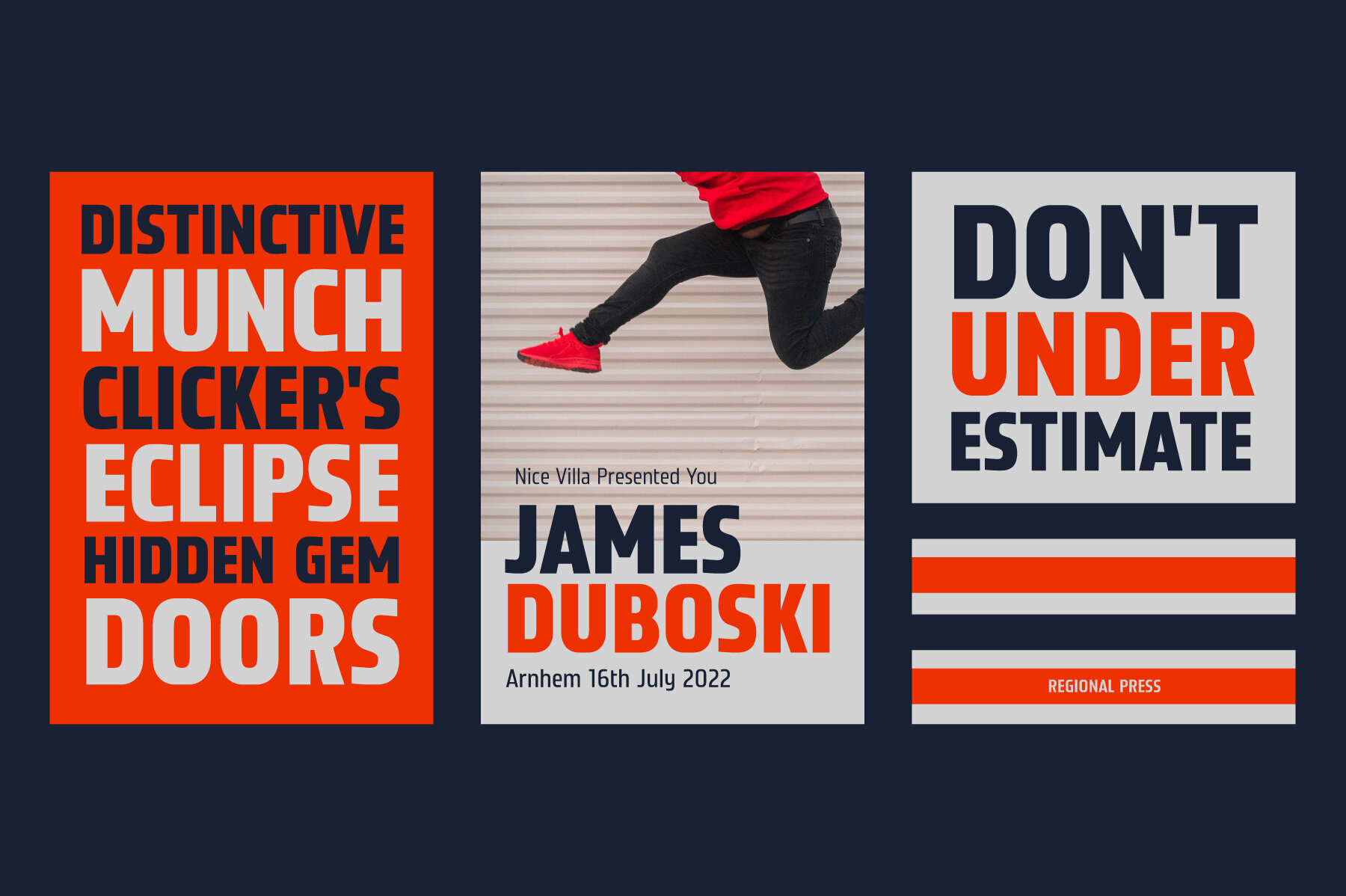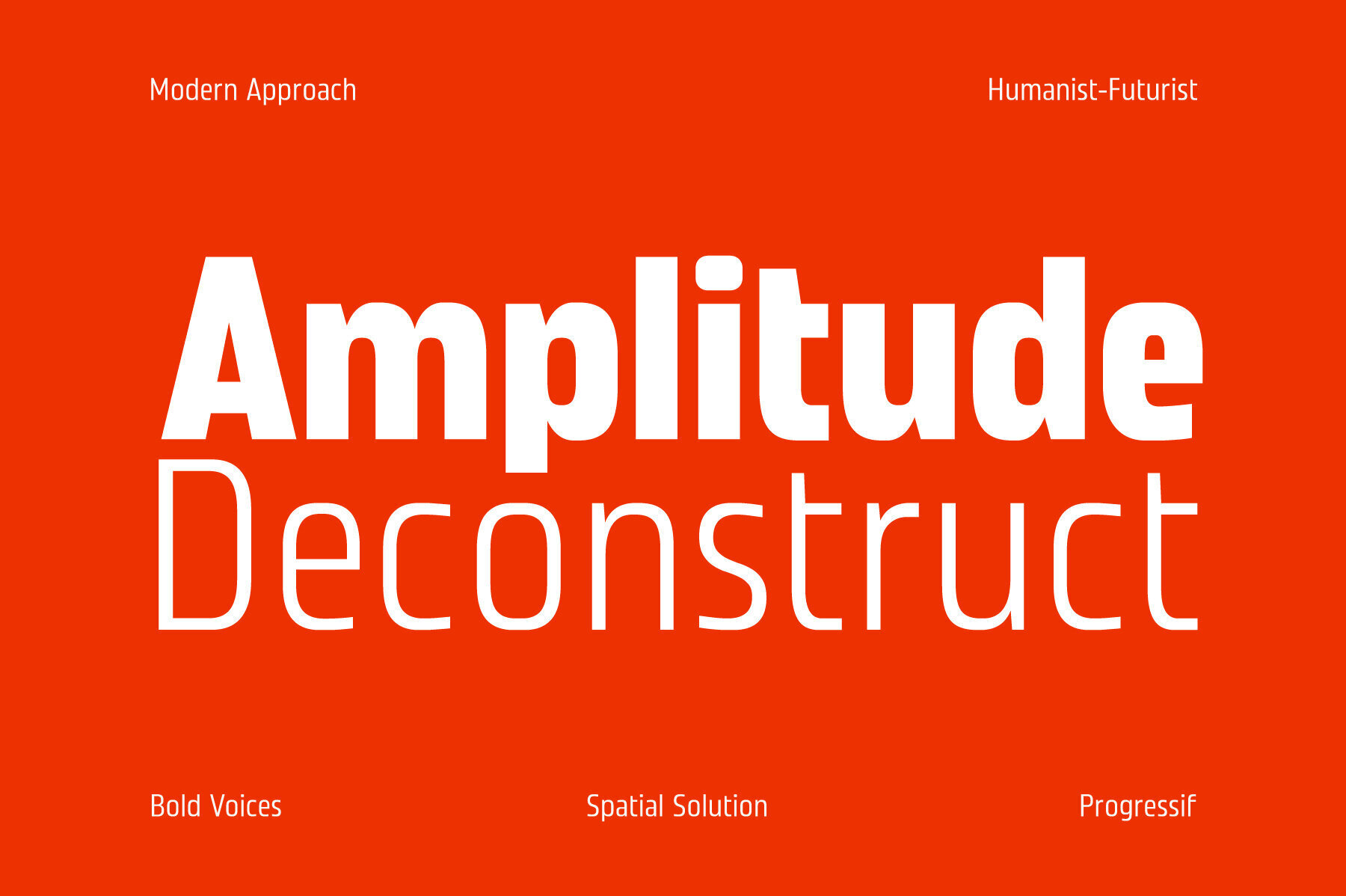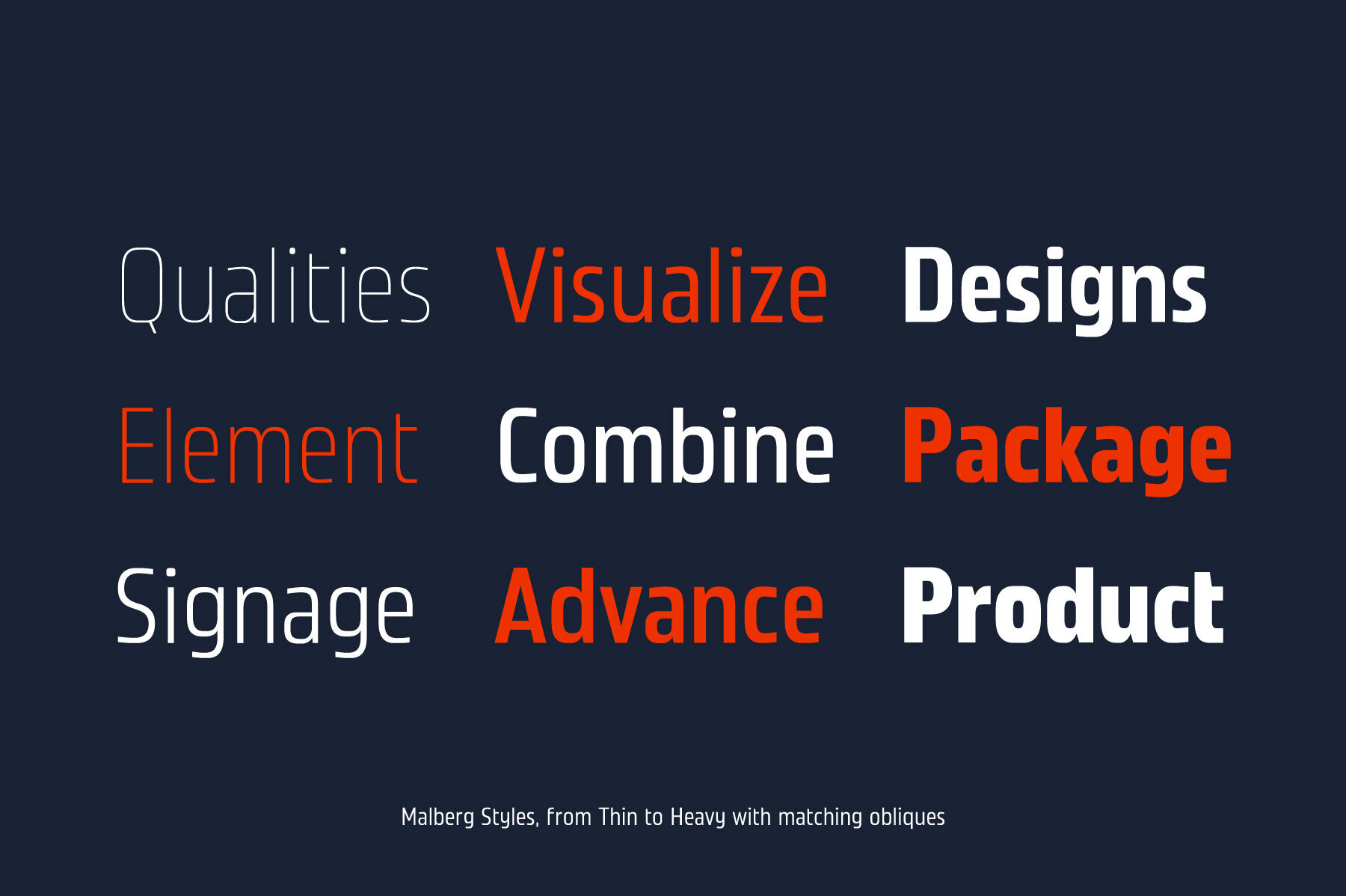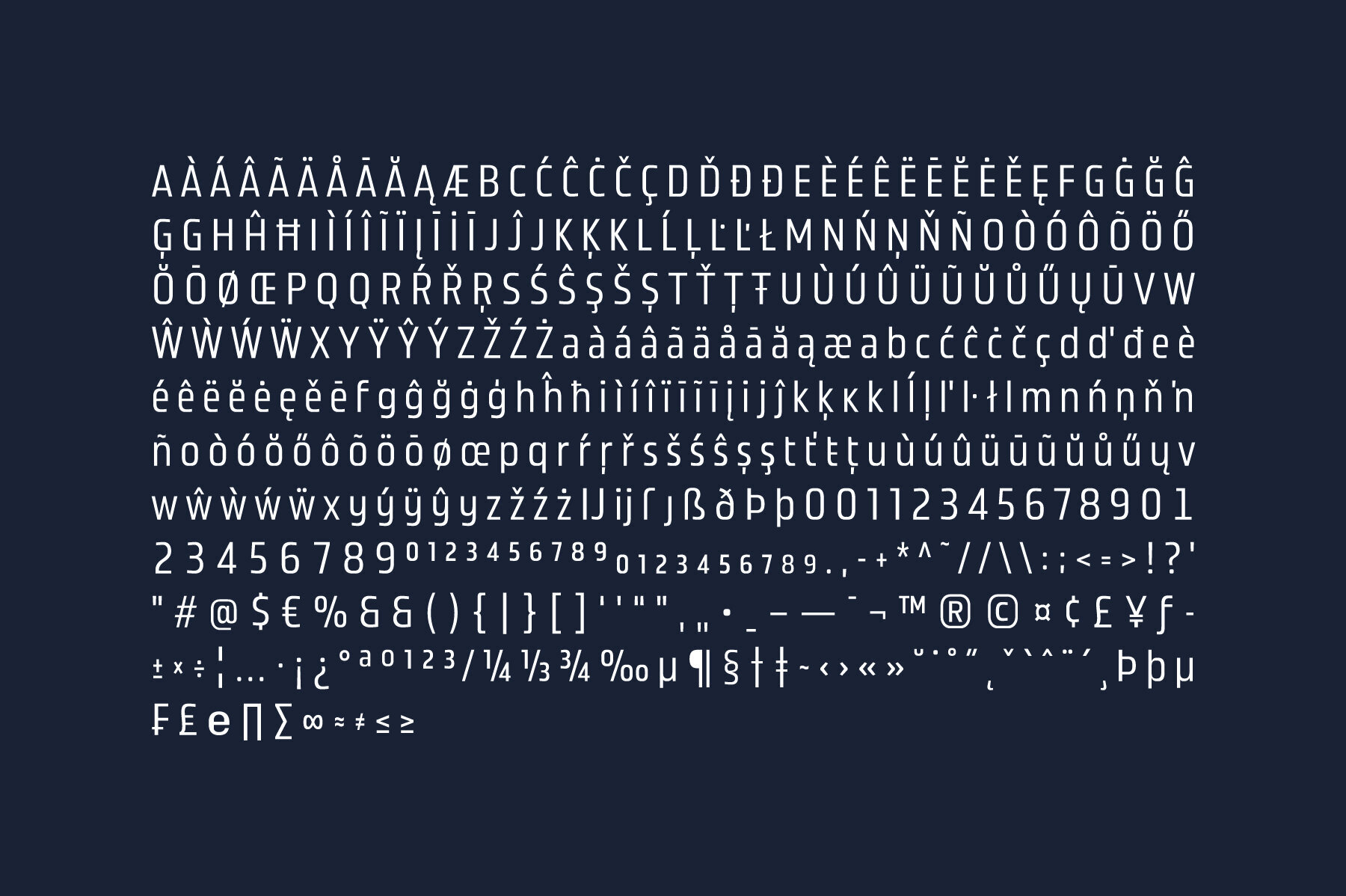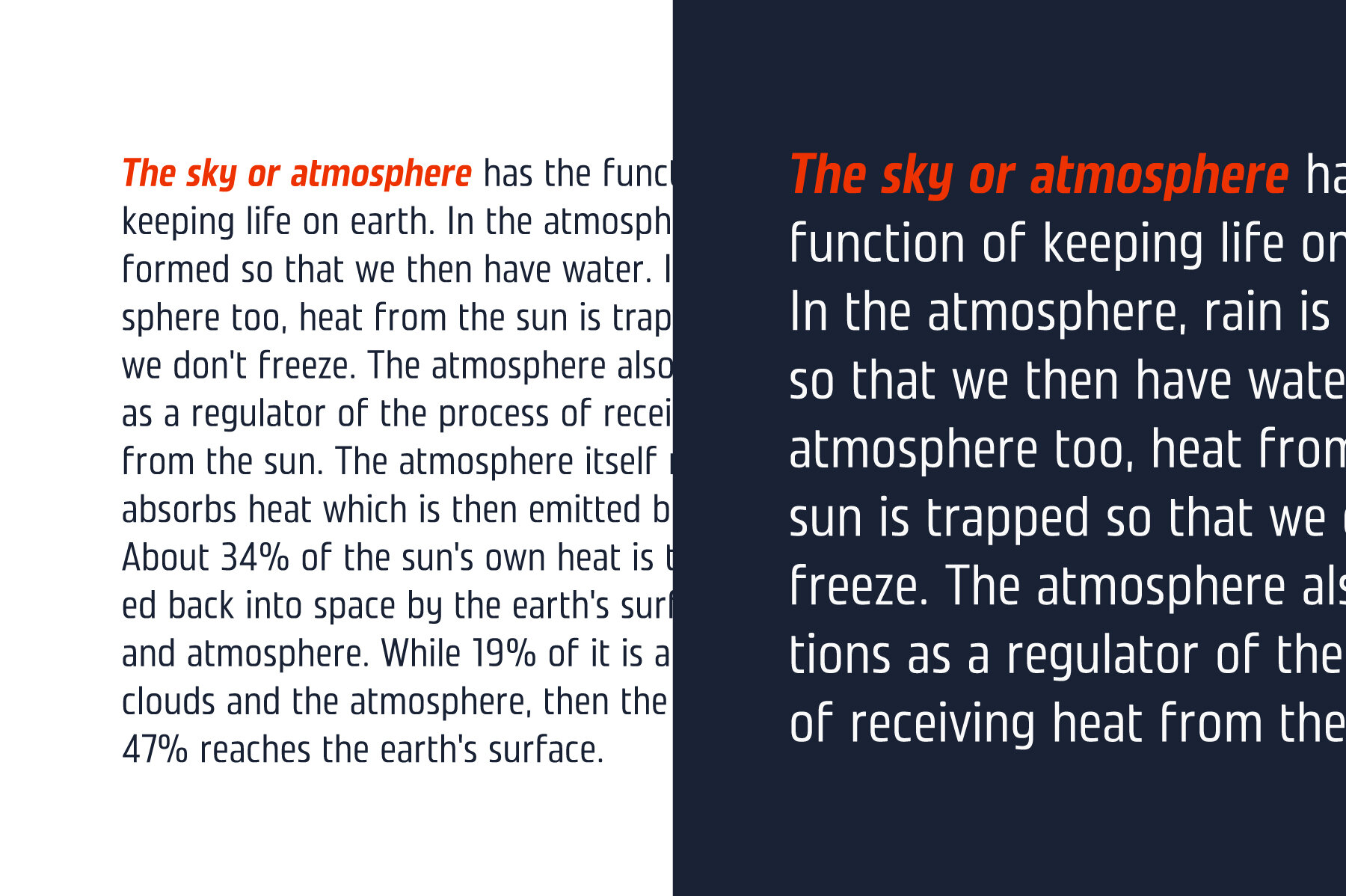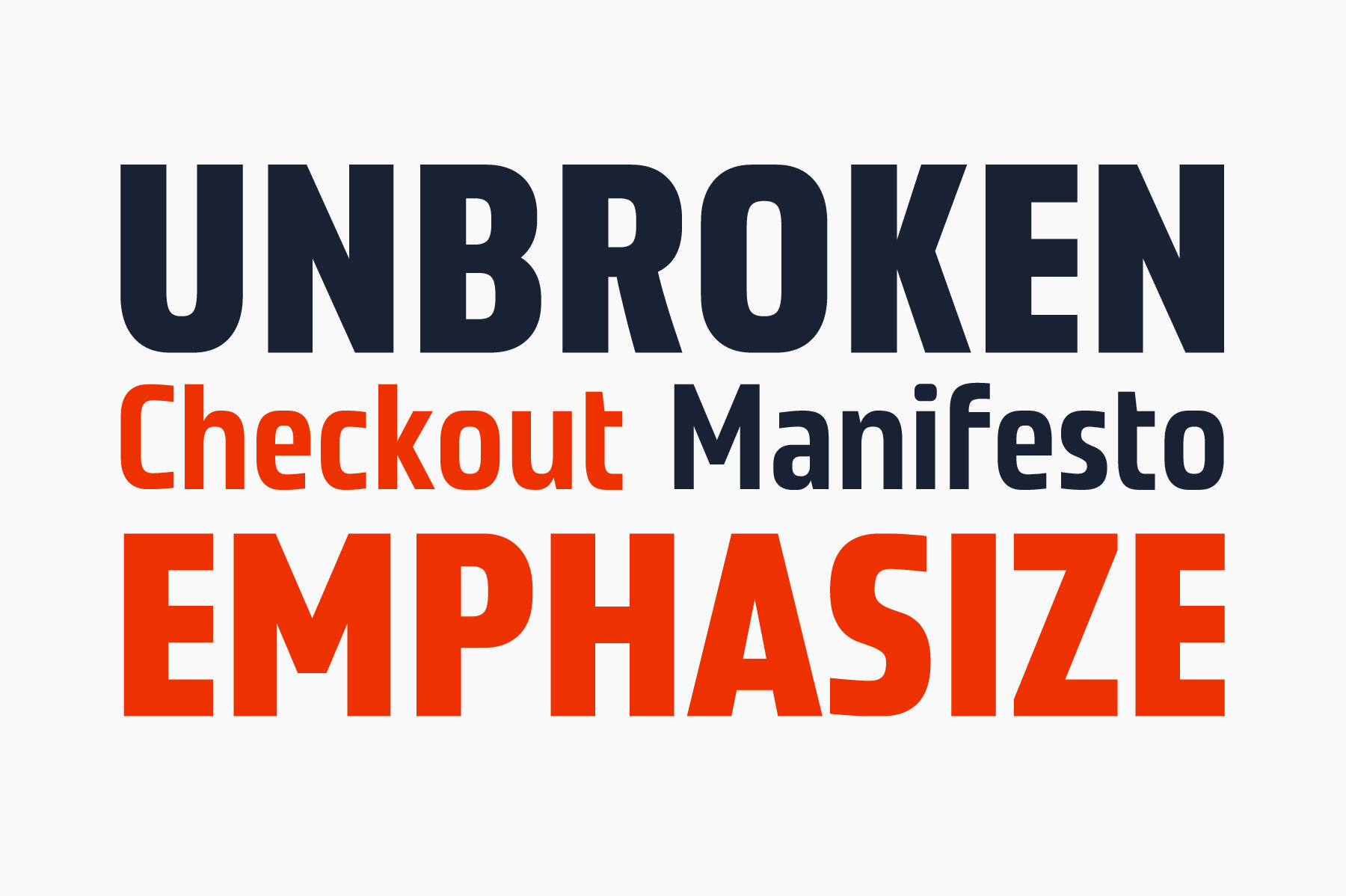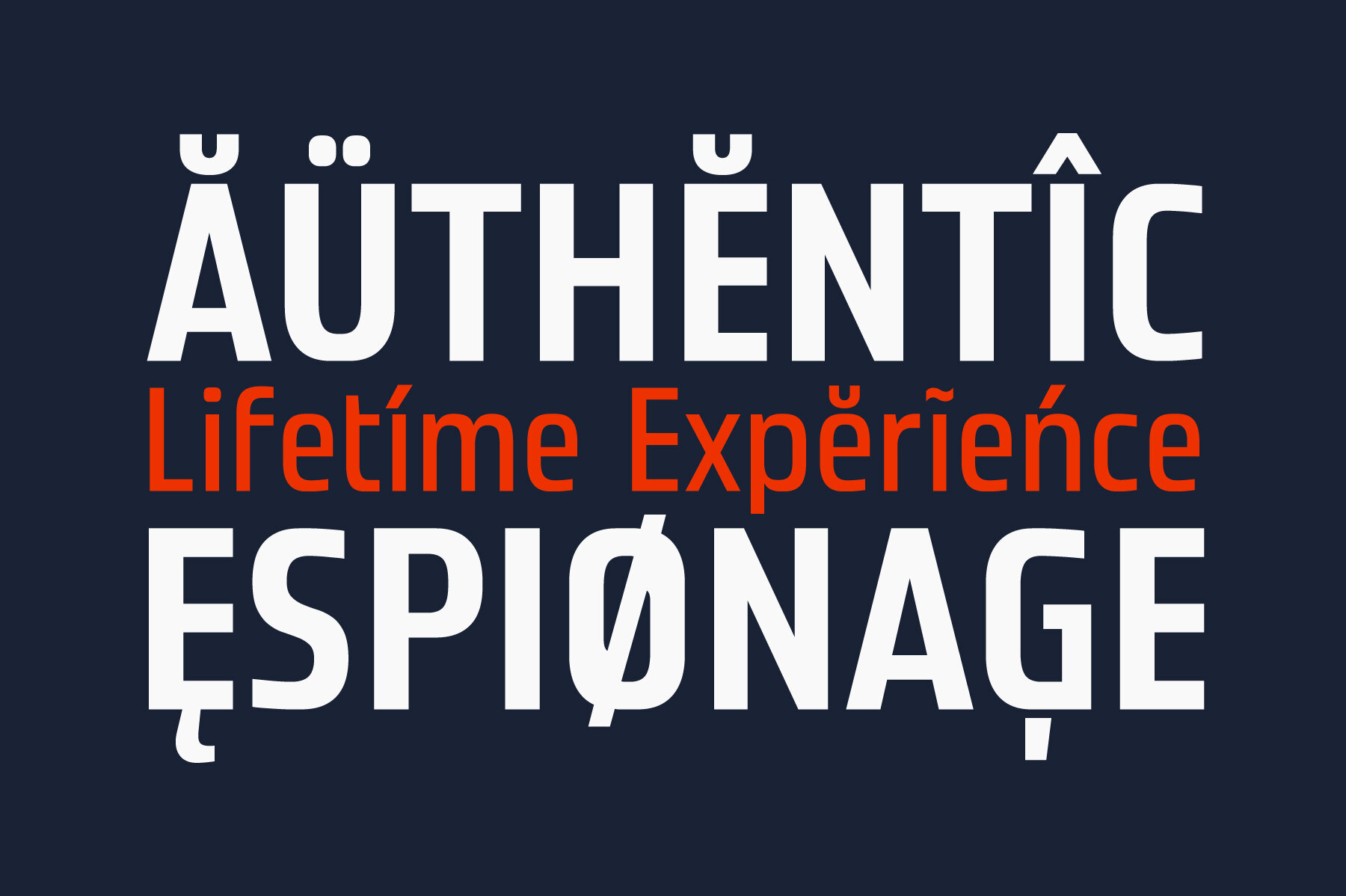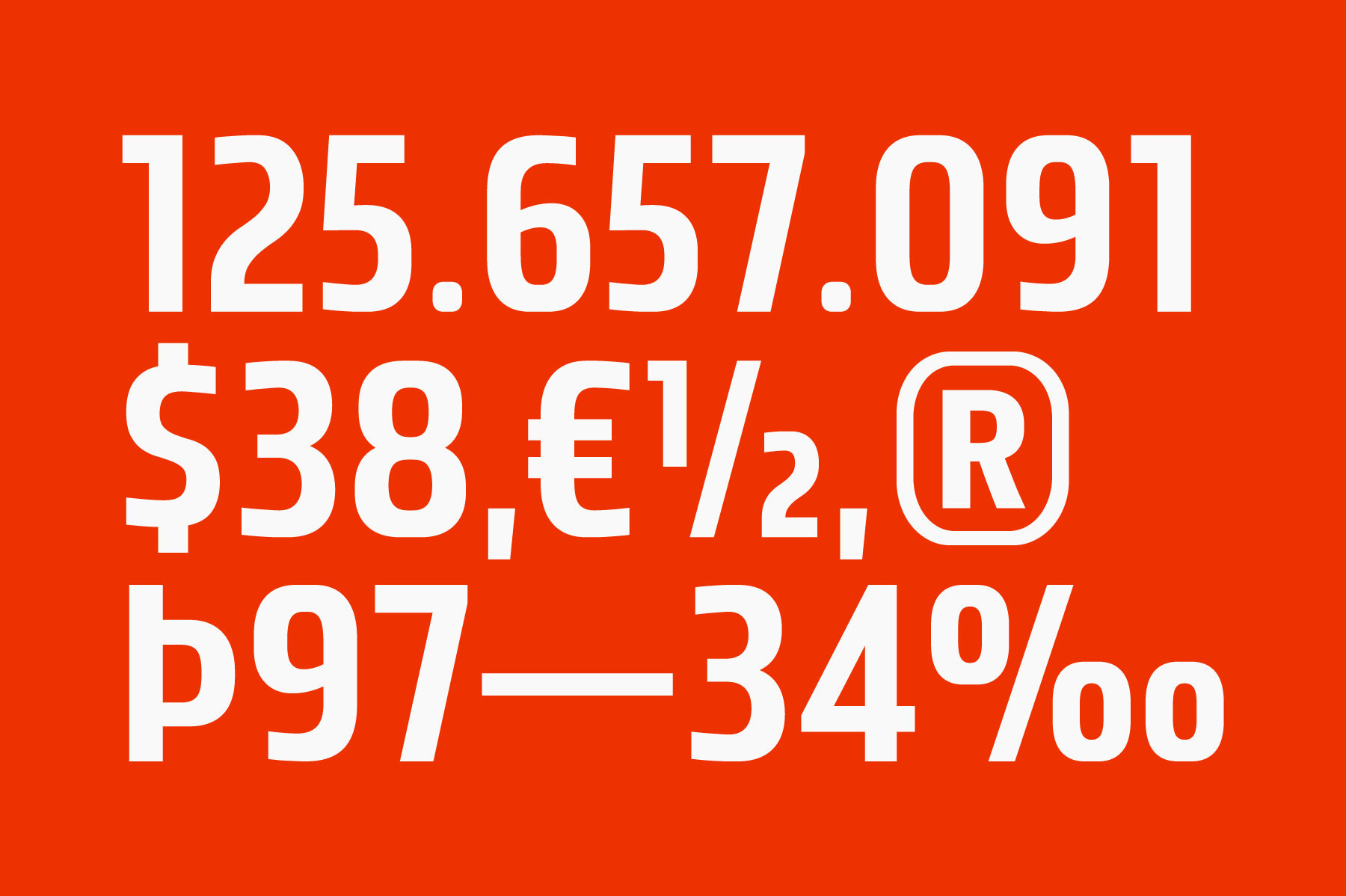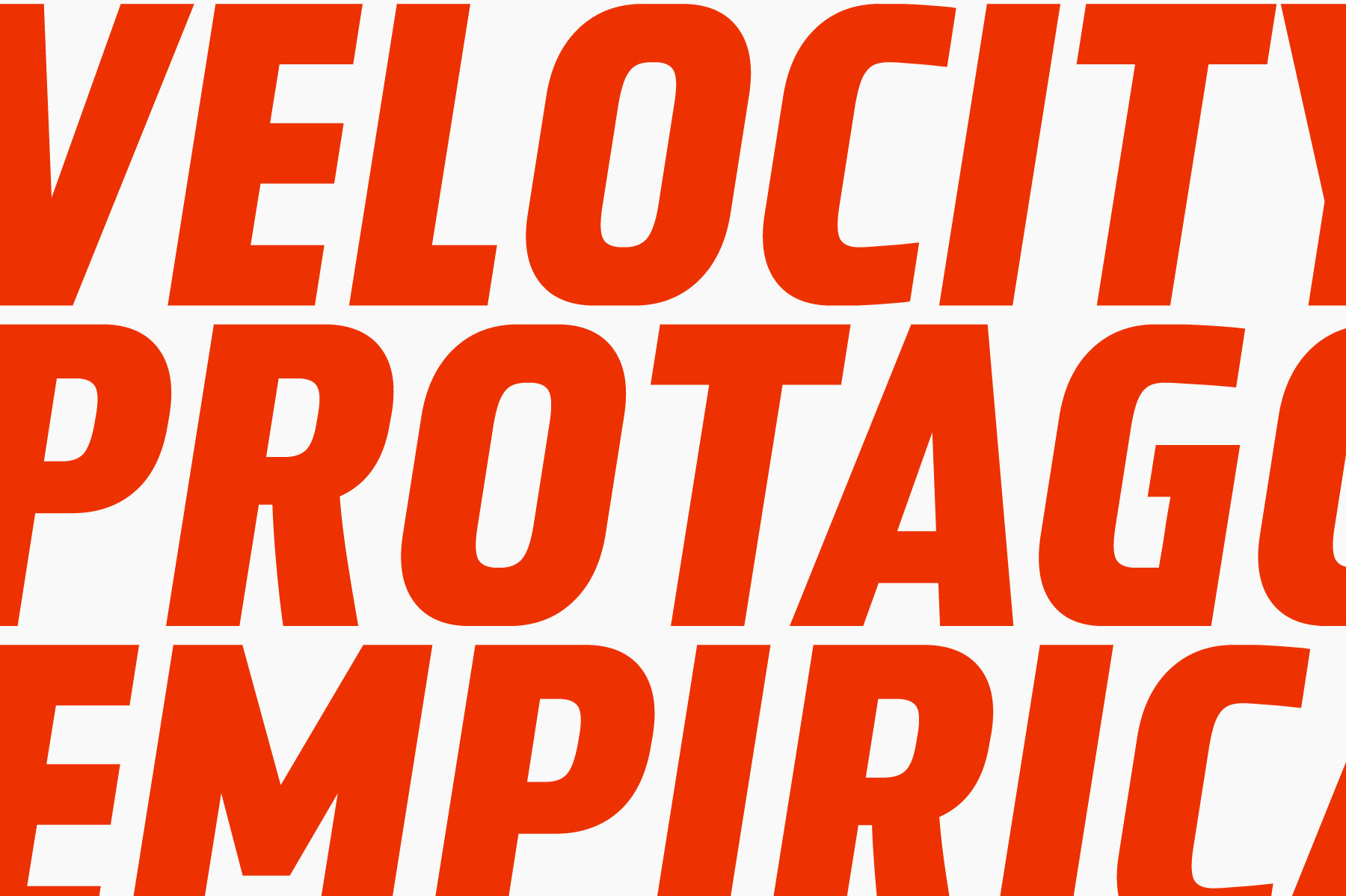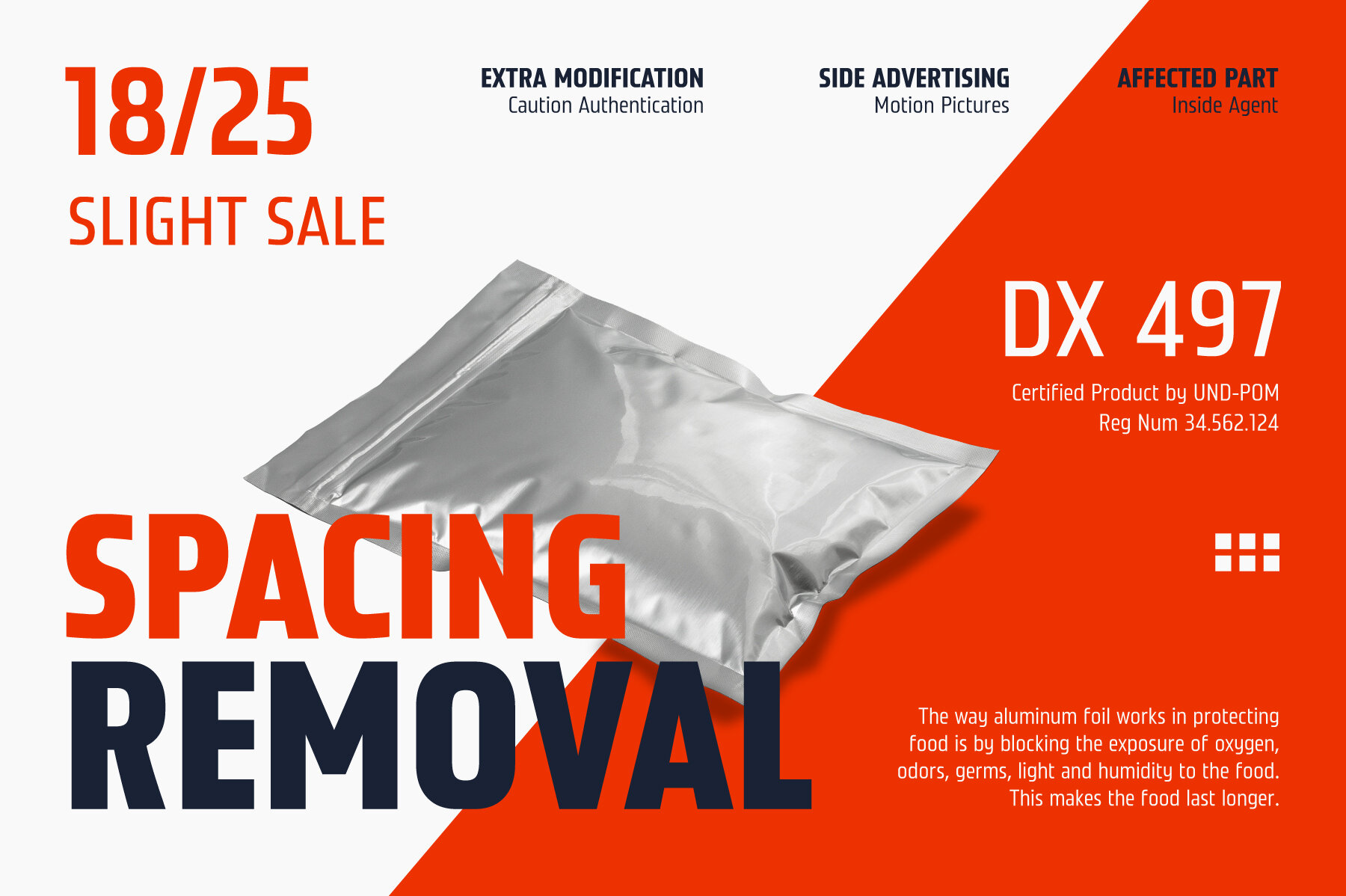
Malberg Font
Malberg is condensed sans serif family. Consist of 9 styles from thin to heavy with matching obliques. Fit for display and short text for various design purposes.